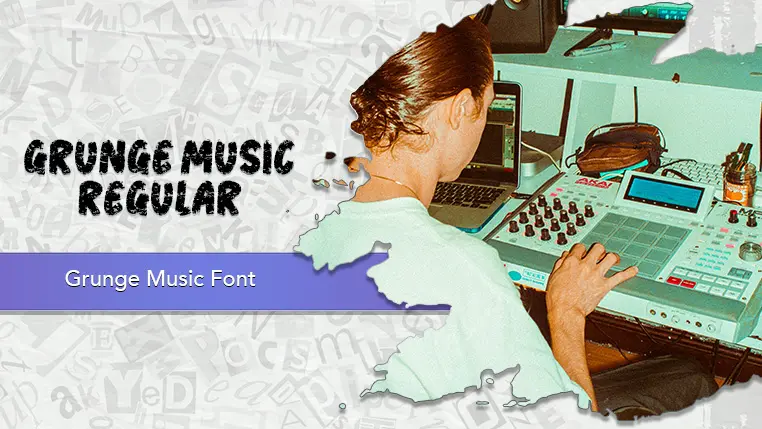
The Grunge Music font family may be ideal for you if you enjoy working on an artistic design project. The lively, expressive look of this typeface, which was created by JSHcreates, makes it ideal for Band and Album Art. It can be used for branding for businesses that want a rebellious, alternative, or counter-culture identity, such as record stores, tattoo parlors, or indie clothing brands. The bold, worn-out look makes it ideal for creating eye-catching headlines on event posters, flyers, or social media graphics, especially for music festivals, parties, or underground events. It is a popular choice for t-shirt designs, patches, and other merchandise where a distressed and punk-inspired aesthetic is desired. and other light-hearted visual projects.
Regular are the one primary font styles of the Grunge Music font family. You may build dynamic, visually appealing text layouts with the distinct flair that each style offers. With crisp, readable lines and a relaxed tone.